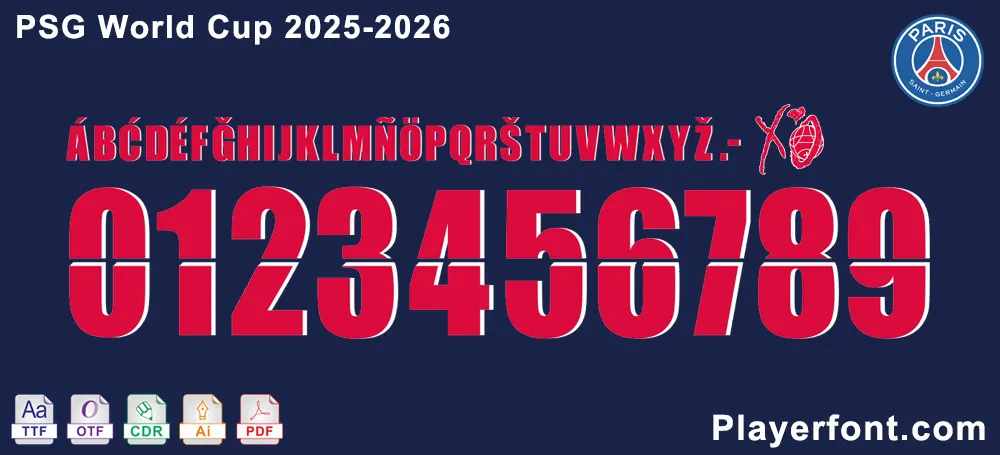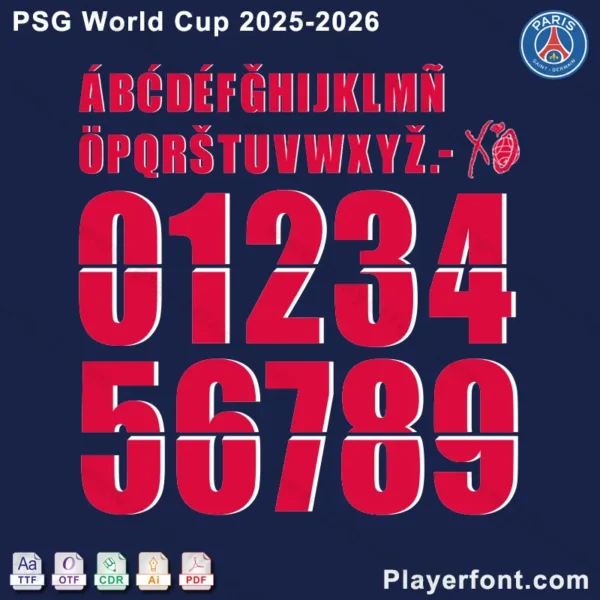
Are you a dedicated Paris Saint-Germain fan or a graphic designer looking for the ultimate football typography? Look no further! Our PSG World Cup 2025-26 Font Download brings you the authentic typeface used for player names and numbers during the highly anticipated 2025-26 World Cup season. This exclusive digital product is meticulously crafted to ensure precision and quality, allowing you to replicate the official look with ease.
- Authenticity: Get the exact font used by Paris Saint-Germain for their World Cup 2025-26 kits.
- Customizing football jerseys with player names and numbers.
- Creating fan merchandise, posters, and banners.
- Designing unique sports graphics and digital art.
- Adding an authentic touch to your presentations or personal projects.